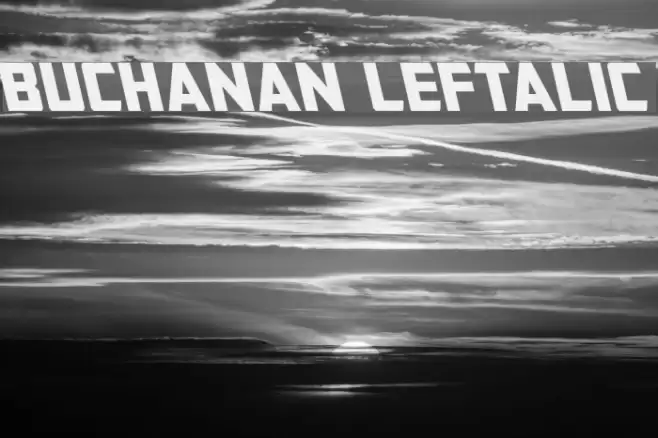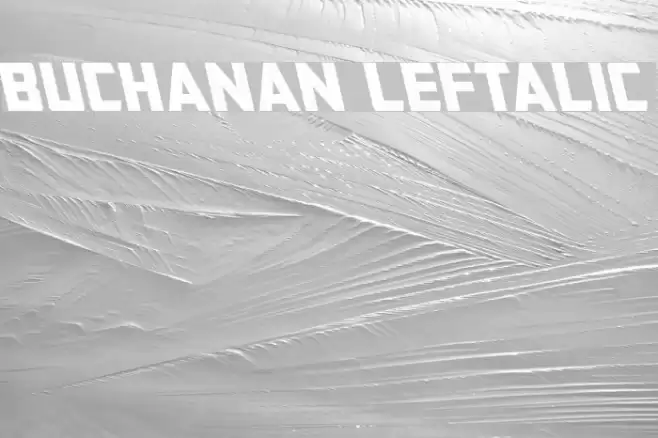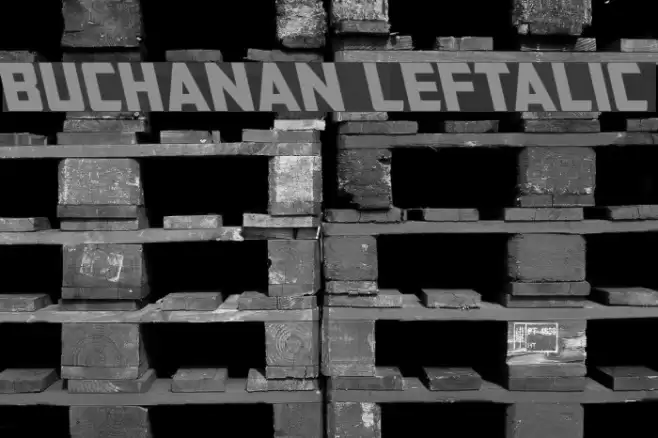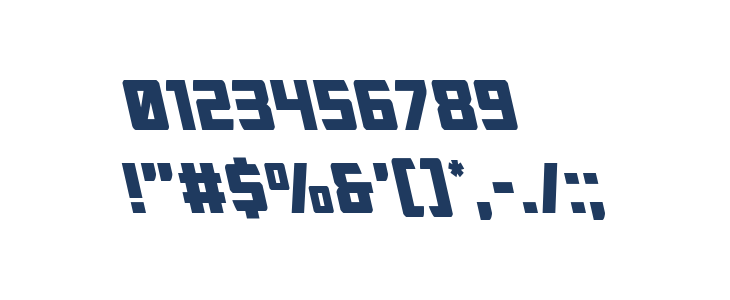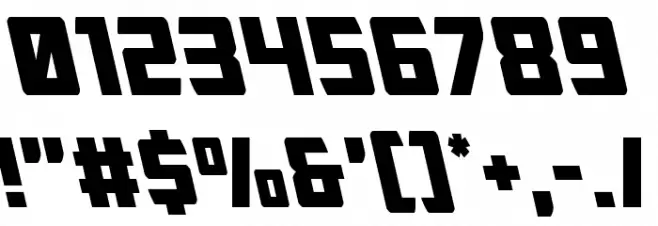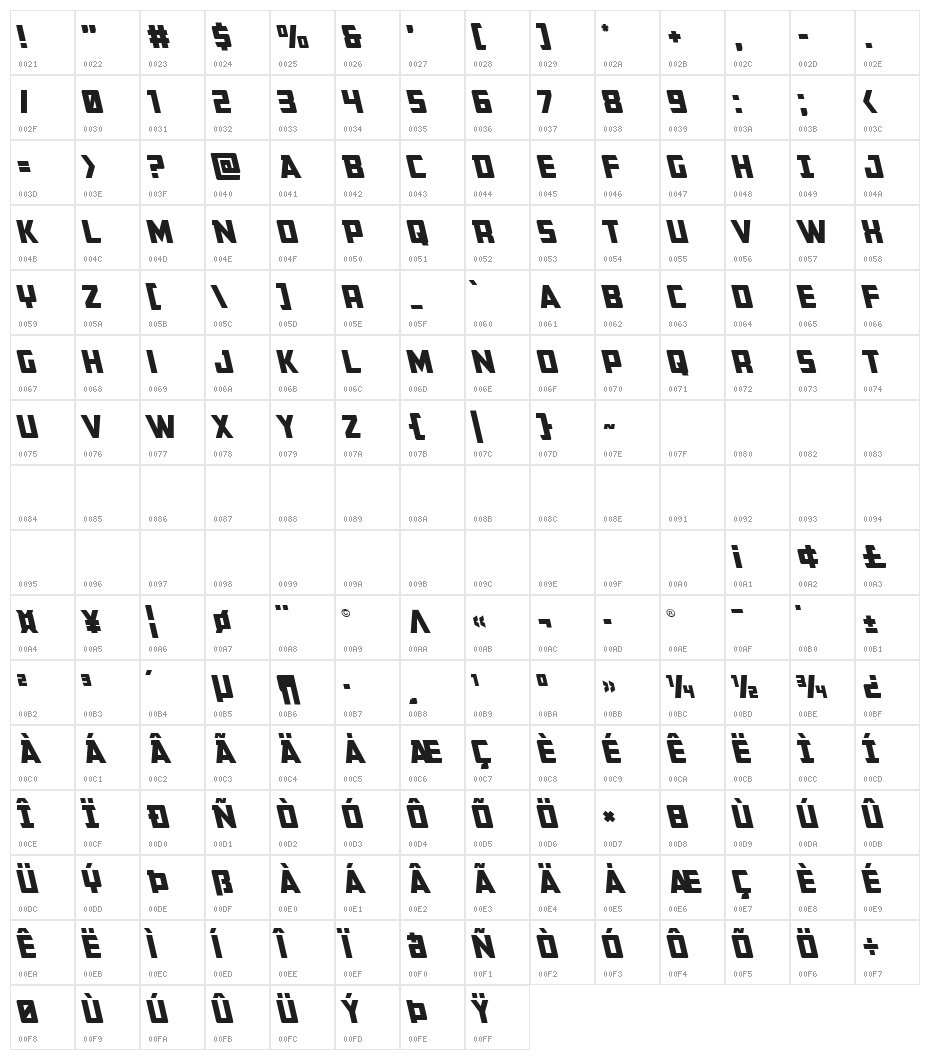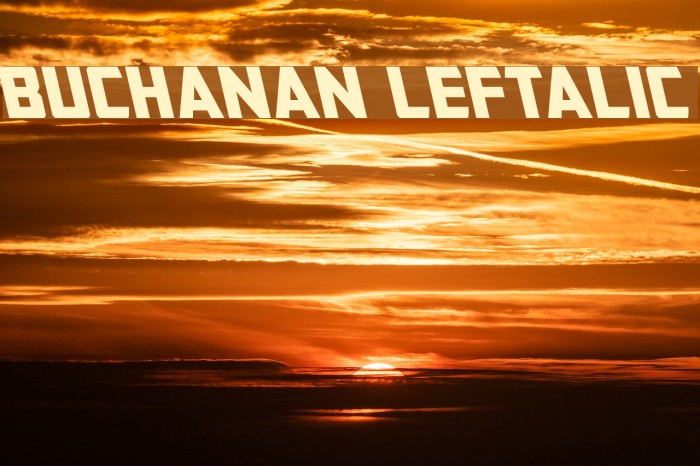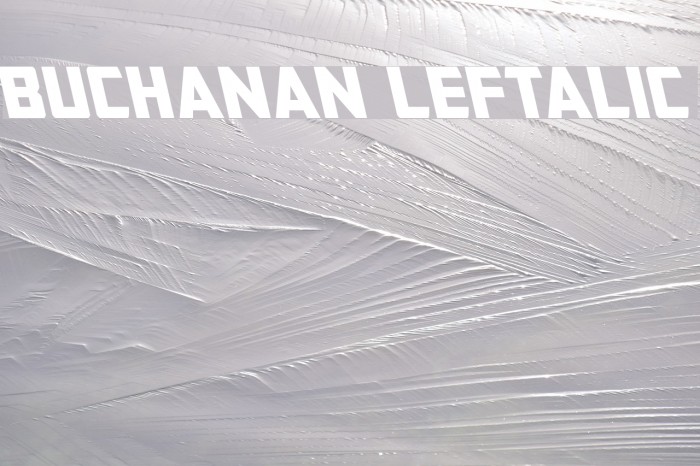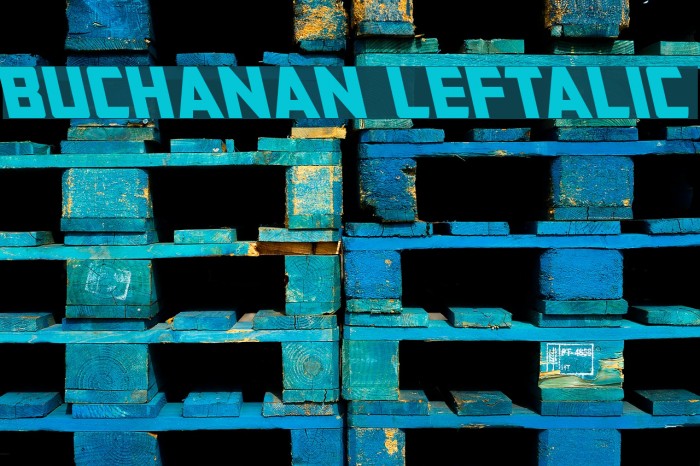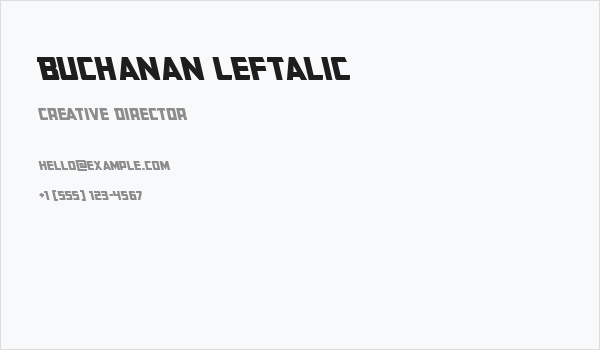
Buchanan Leftalic Font
Buchanan Leftalic Description
This font features a bold, angular design with a strong geometric influence. The characters are slightly slanted, giving a dynamic and forward-moving appearance. The uppercase letters are prominent and assertive, while the lowercase letters maintain a consistent style with a slightly condensed form. The numerals are equally bold and maintain the same angular style, ensuring uniformity across all characters. The special characters are designed to match the overall aesthetic, with sharp edges and a modern flair. This font is ideal for projects that require a strong visual impact and a contemporary look.
A bold, angular font with a dynamic, slanted design from Uncategorized fonts.
- Proposed Projects: Ideal for branding, posters, headlines, and any design requiring a strong, modern impact.